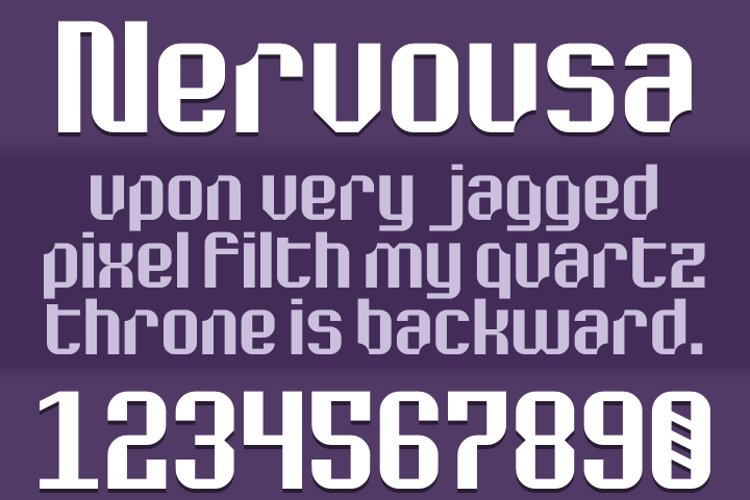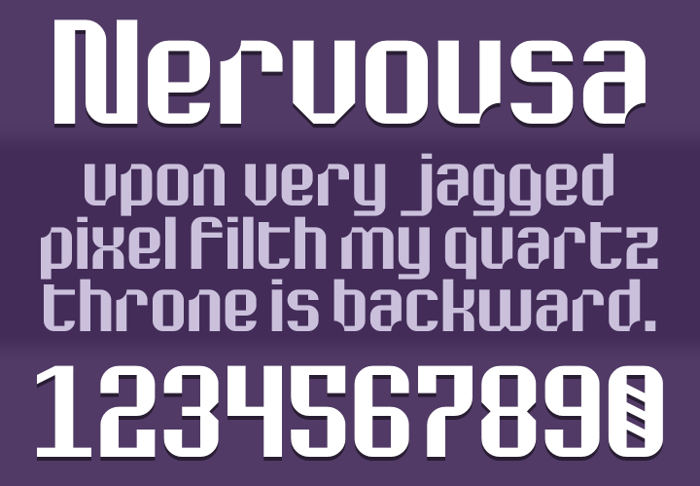
Nervousa Font
by Pixel Kitchen
Experimental
This font used to be a normal Decolike... until someone decided to chow down on it! They seemed to prefer the taste of spurs, as all of them have been bitten off, leaving only semicircular impressions.